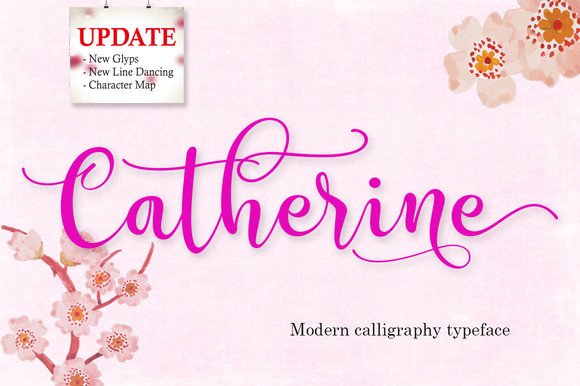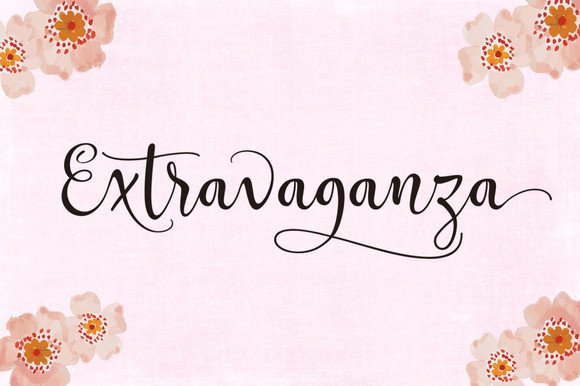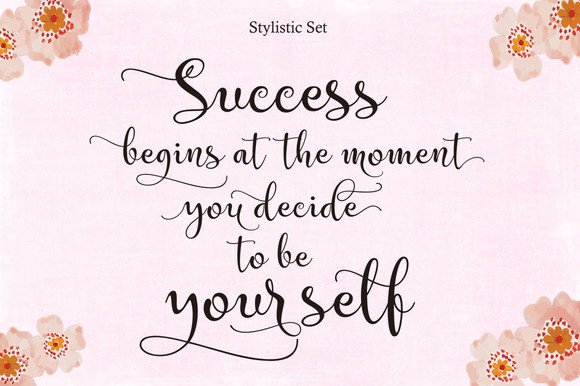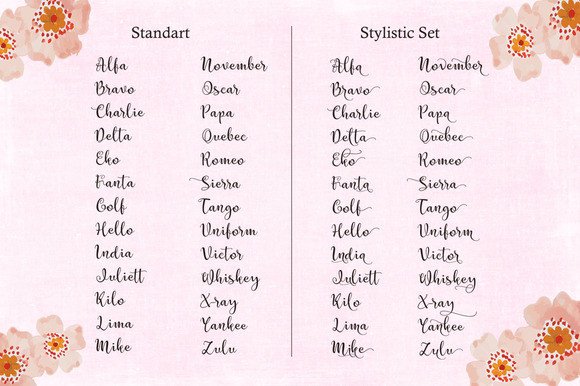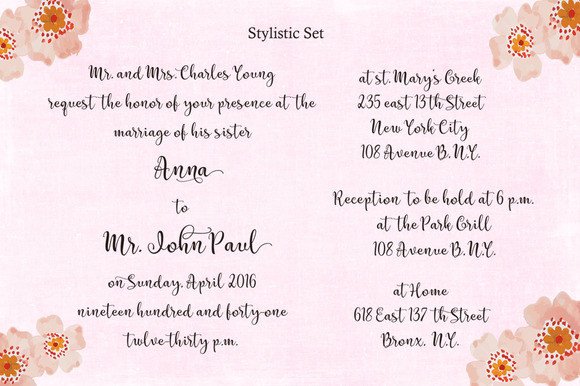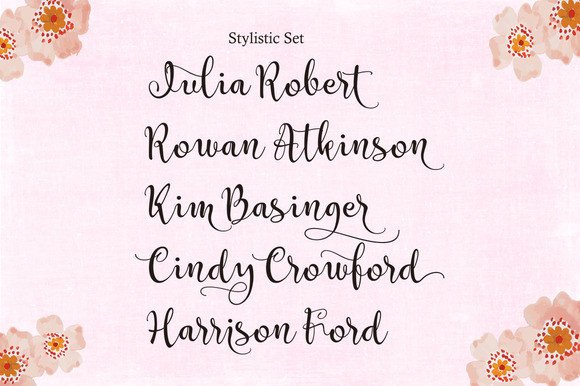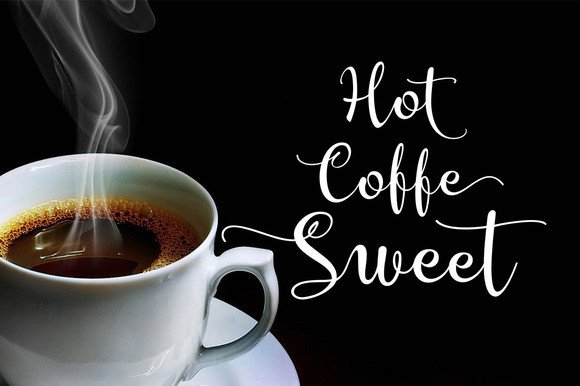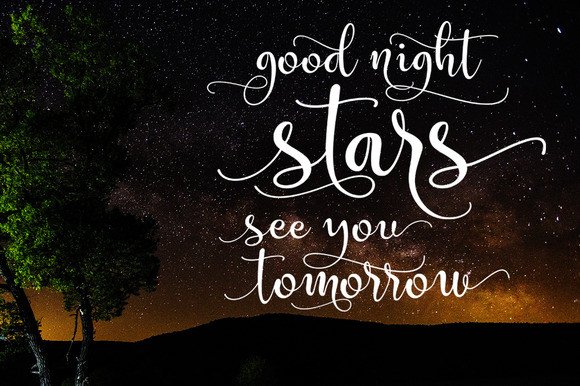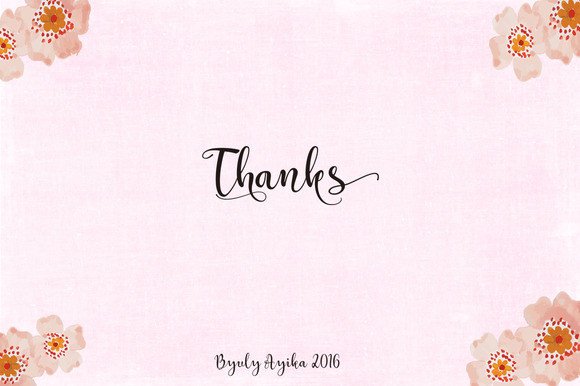
Catherine Font
About Catherine Font
Catherine is a beautiful and elegant handwritten font.
The fine and smooth lines give the font a very classy look and feel. The font is clear to read and contains many extra characters. This makes it suitable for many purposes and because it contains so many extra’s you can use it over and over again without getting bored. Every design you make will be completely unique.